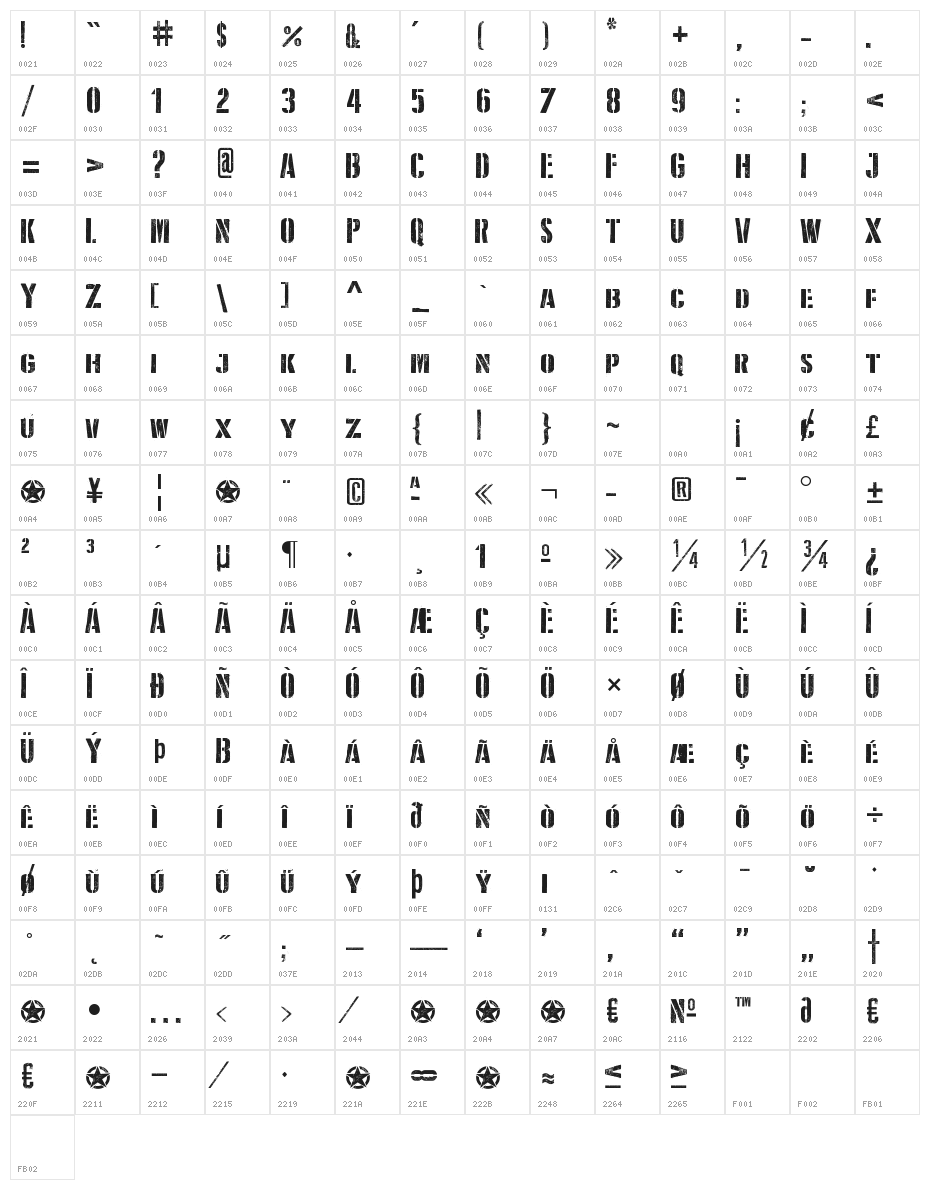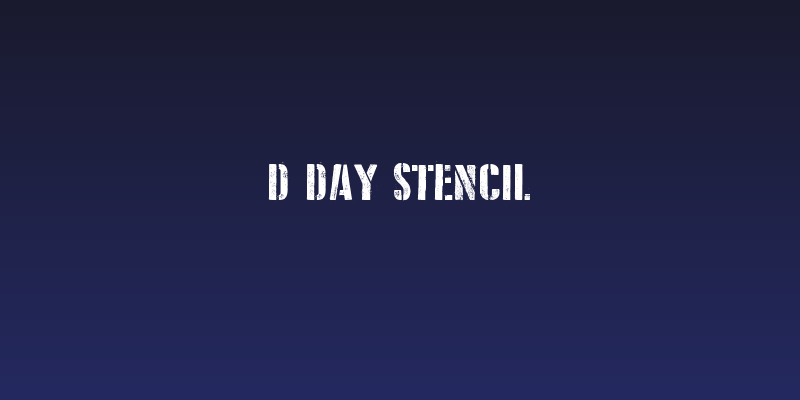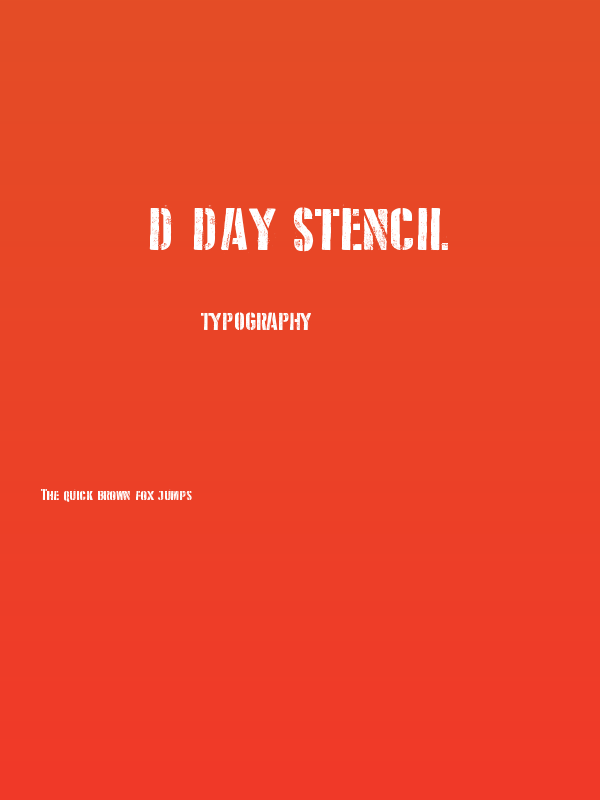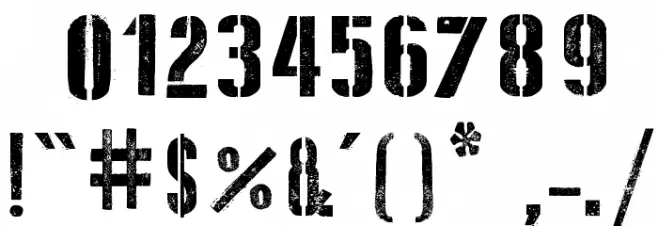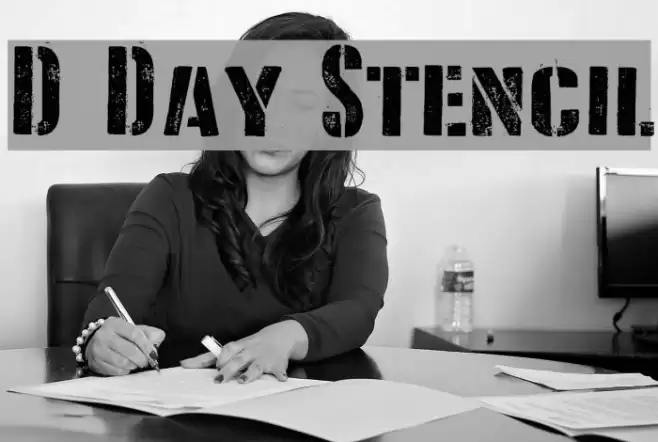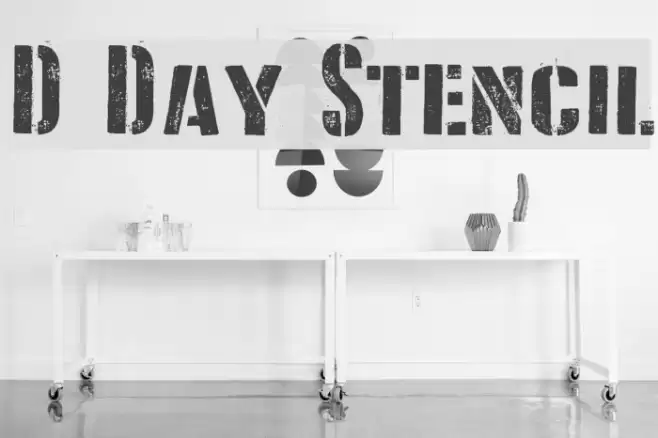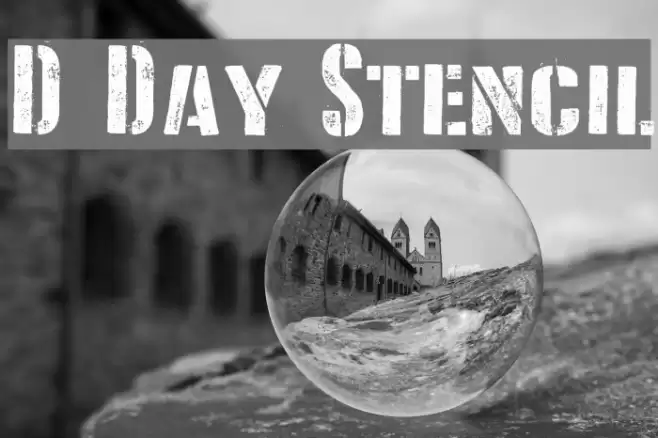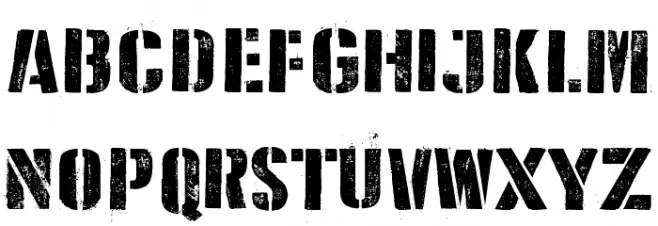
D Day Stencil Font
| Progetti proposti | Ideal for military-themed designs, posters, apparel, logos, and signage that require a strong, impactful presence. |